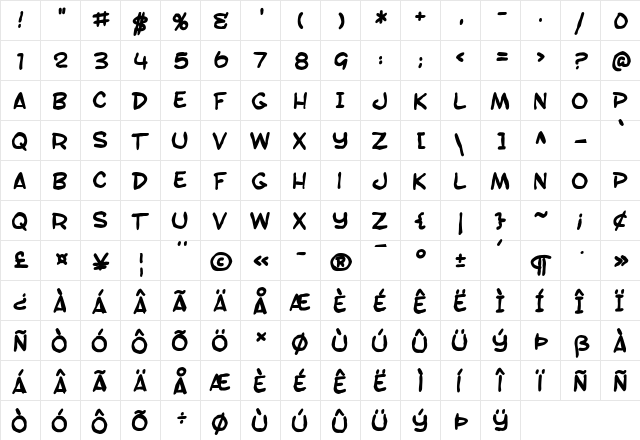
SF Toontime Blotch Bold
| Designer | ShyFonts Type Foundry |
Design Context for SF Toontime Blotch Typeface
SF Toontime Blotch is a composed and adaptable typeface that performs quietly and consistently across a wide range of design contexts. The heavy weight commands attention and anchors typographic hierarchies.